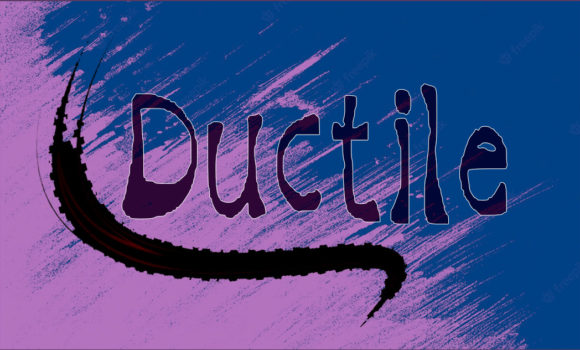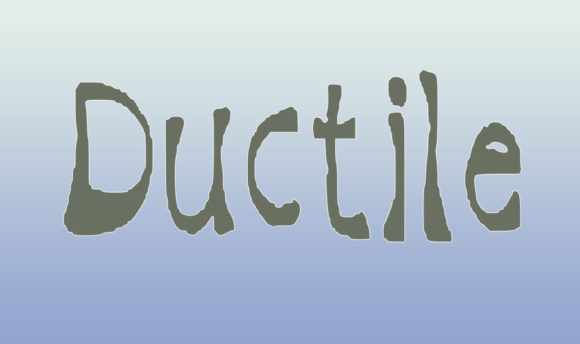
Ductile Font: Elevate Your Designs with a Bold and Stylish Display Font
In the world of design, fonts play a crucial role in conveying the message and tone of a project. When it comes to making a statement, a bold and stylish display font is essential. This is where Ductile Font comes in – an impressive and eye-catching font that gives a metallic feeling to your designs. In this article, we’ll dive into the features and benefits of Ductile Font, and explore how it can elevate your designs to the next level.
What is Ductile Font?
Ductile Font is a stunning display font that boasts a bold and cool look. Its unique design makes it perfect for adding a touch of sophistication and glamour to your projects. Whether you’re working on a logo, poster, or social media graphic, Ductile Font is sure to make a statement. Its metallic feel gives your designs a premium look that’s sure to grab attention.
Key Features of Ductile Font
- Bold and Stylish: Ductile Font features a bold and stylish design that’s perfect for making a statement.
- Metallic Feel: The font’s metallic feel gives your designs a premium look that’s sure to impress.
- Versatile: Ductile Font can be used for all purposes of display writing, from logos and posters to social media graphics and more.
- Easy to Read: Despite its bold design, Ductile Font is easy to read, making it perfect for headlines and titles.
Benefits of Using Ductile Font
So, why should you choose Ductile Font for your next project? Here are just a few benefits of using this impressive display font:
- Adds Sophistication: Ductile Font adds a touch of sophistication and glamour to your designs, making them stand out from the crowd.
- Grabs Attention: The font’s bold and metallic design is sure to grab attention and draw the eye.
- Versatile: Ductile Font can be used in a variety of contexts, from print to digital media.
How to Use Ductile Font in Your Designs
So, how can you use Ductile Font in your designs? Here are a few ideas to get you started:
- Logos: Use Ductile Font to create a bold and stylish logo that’s sure to make a statement.
- Posters: Add a touch of sophistication to your posters with Ductile Font.
- Social Media Graphics: Use Ductile Font to create eye-catching social media graphics that grab attention.
- Headlines: Use Ductile Font for headlines and titles to add a touch of glamour and sophistication.
Tips and Tricks for Getting the Most Out of Ductile Font
Here are a few tips and tricks for getting the most out of Ductile Font:
- Experiment with Colors: Try out different colors and gradients to give your designs a unique look.
- Play with Texture: Add texture to your designs to give them a more metallic feel.
- Use it Sparingly: Use Ductile Font sparingly to make a bigger impact.
In conclusion, Ductile Font is an impressive and stylish display font that’s perfect for making a statement. Its bold and metallic design gives your designs a premium look that’s sure to grab attention. With its versatility, ease of use, and range of applications, Ductile Font is a must-have for designers and crafters. So why wait? Download Ductile Font today and elevate your designs to the next level!